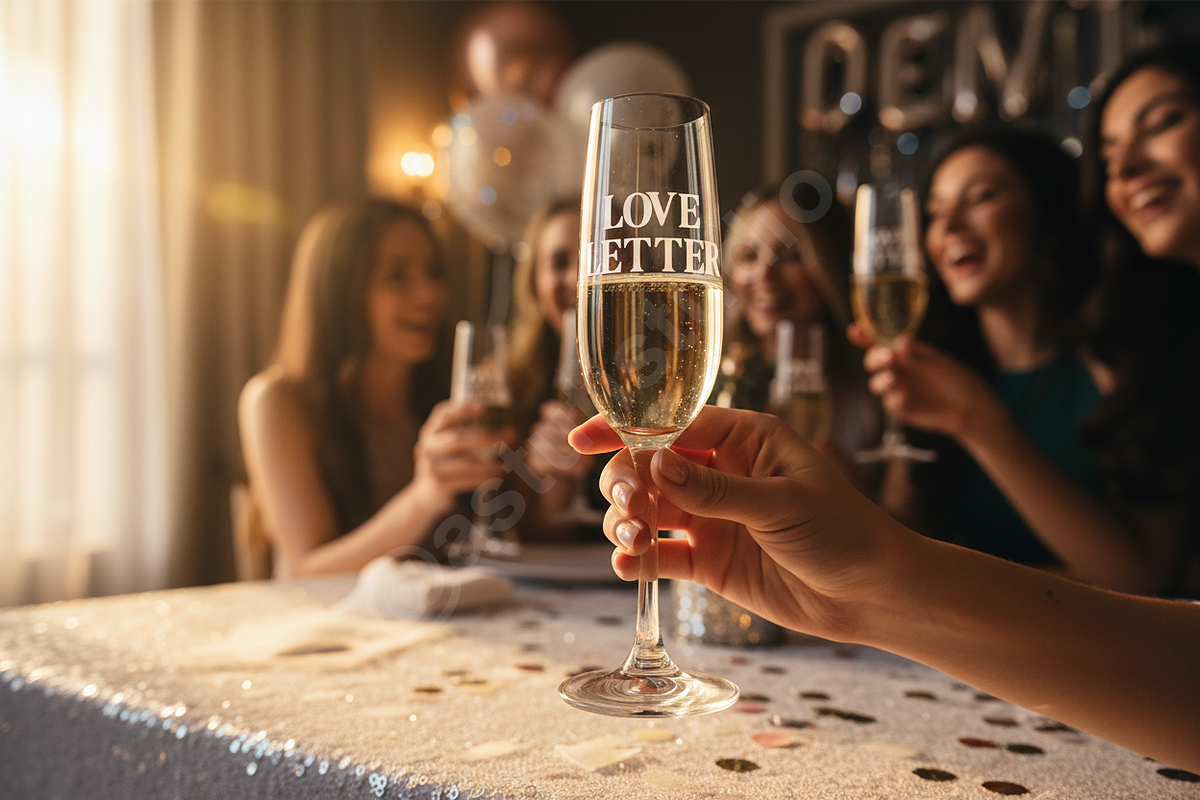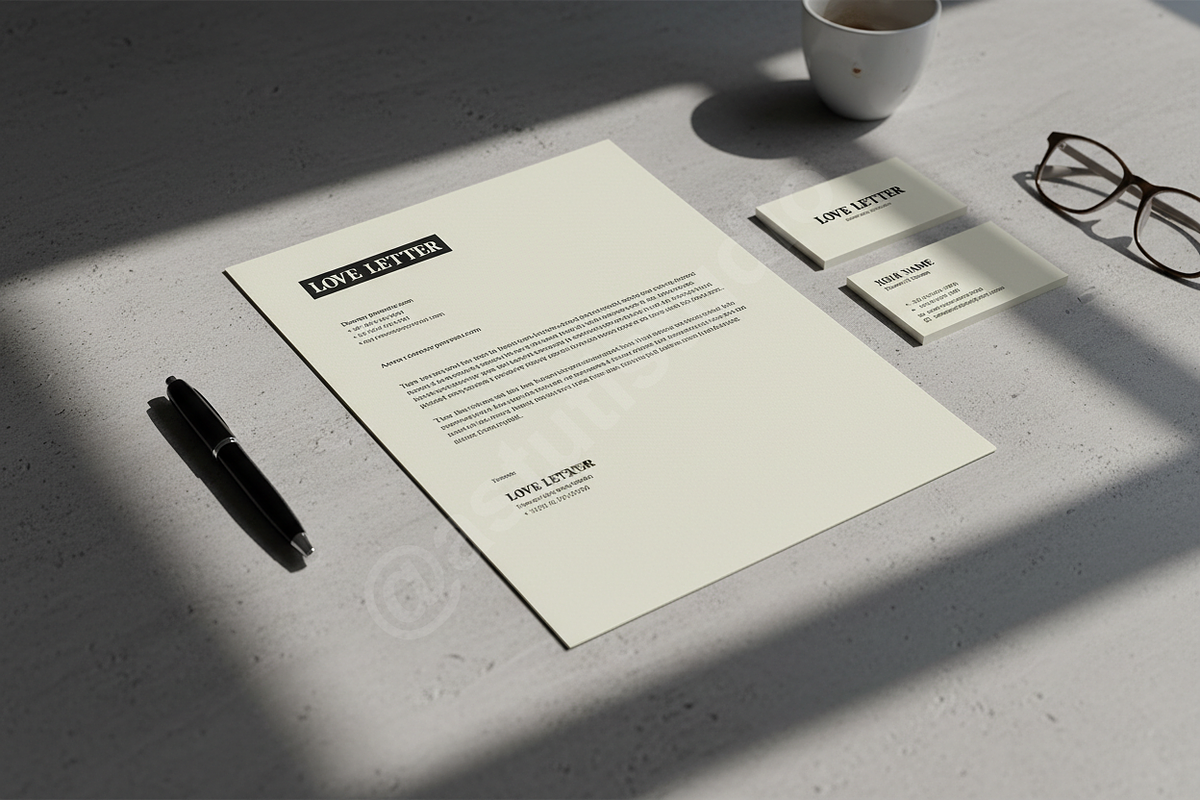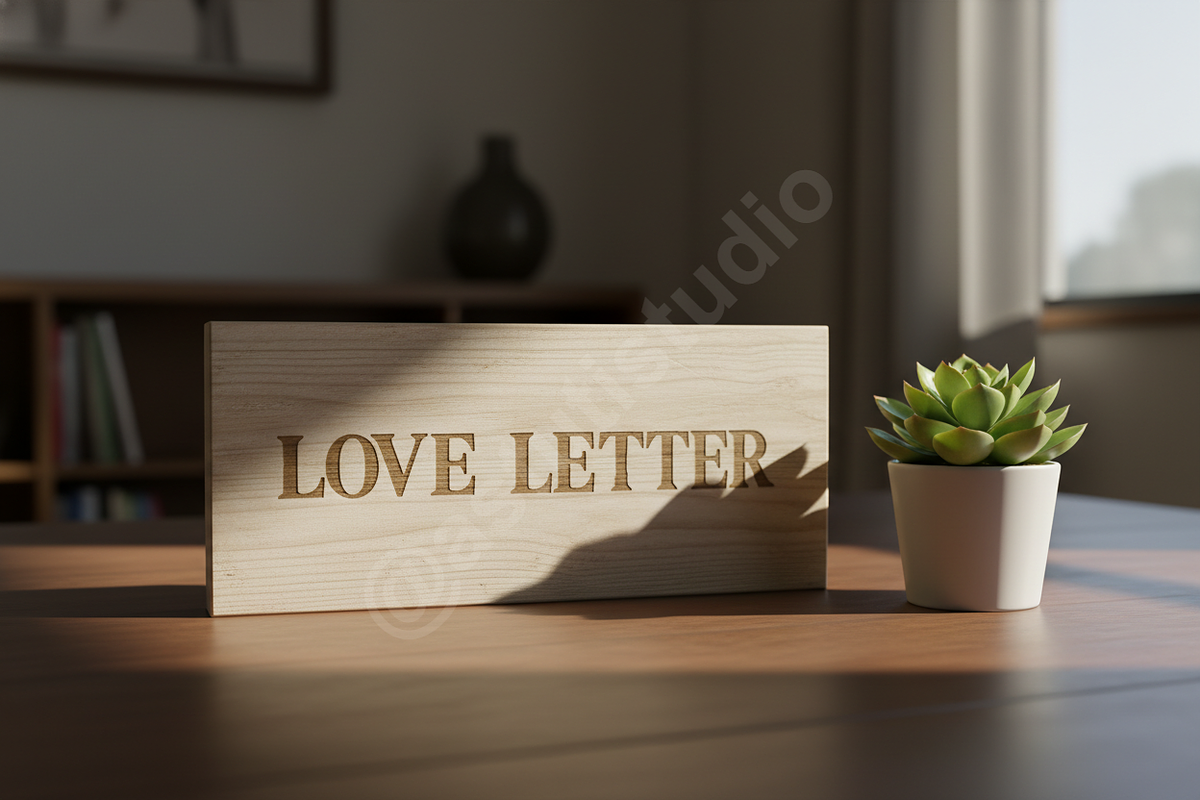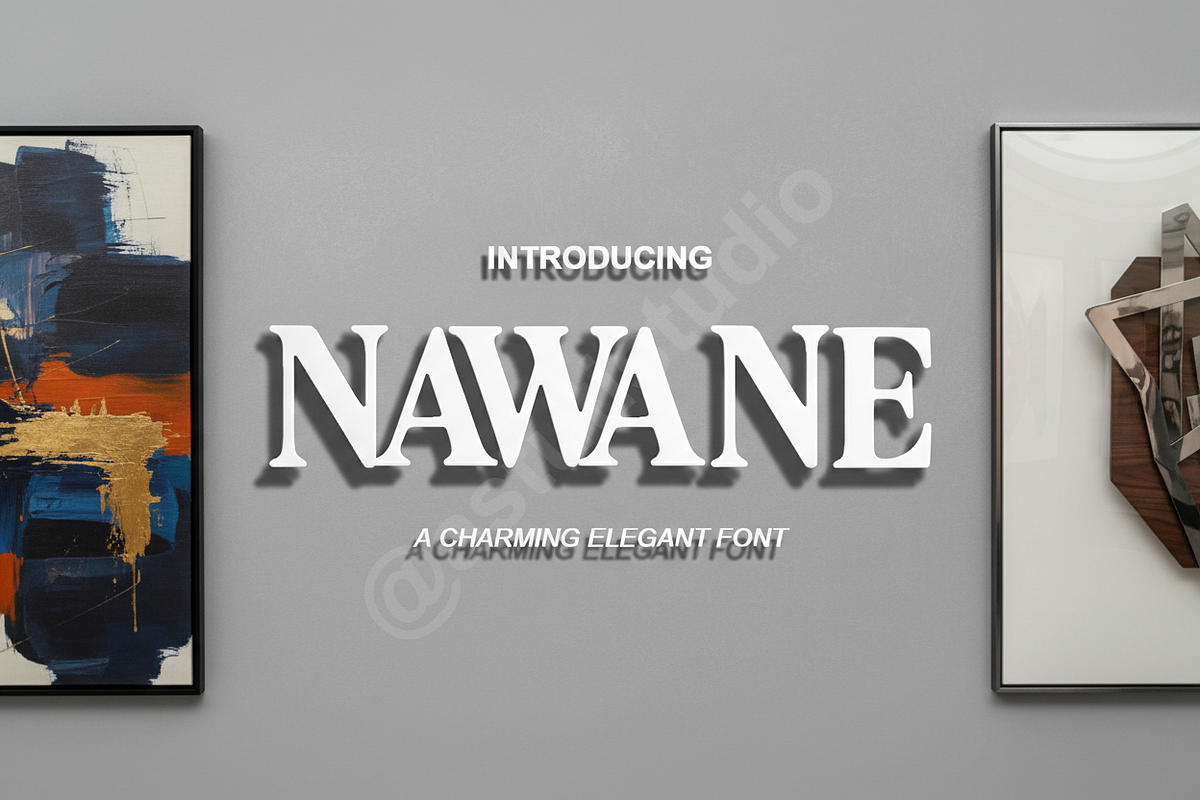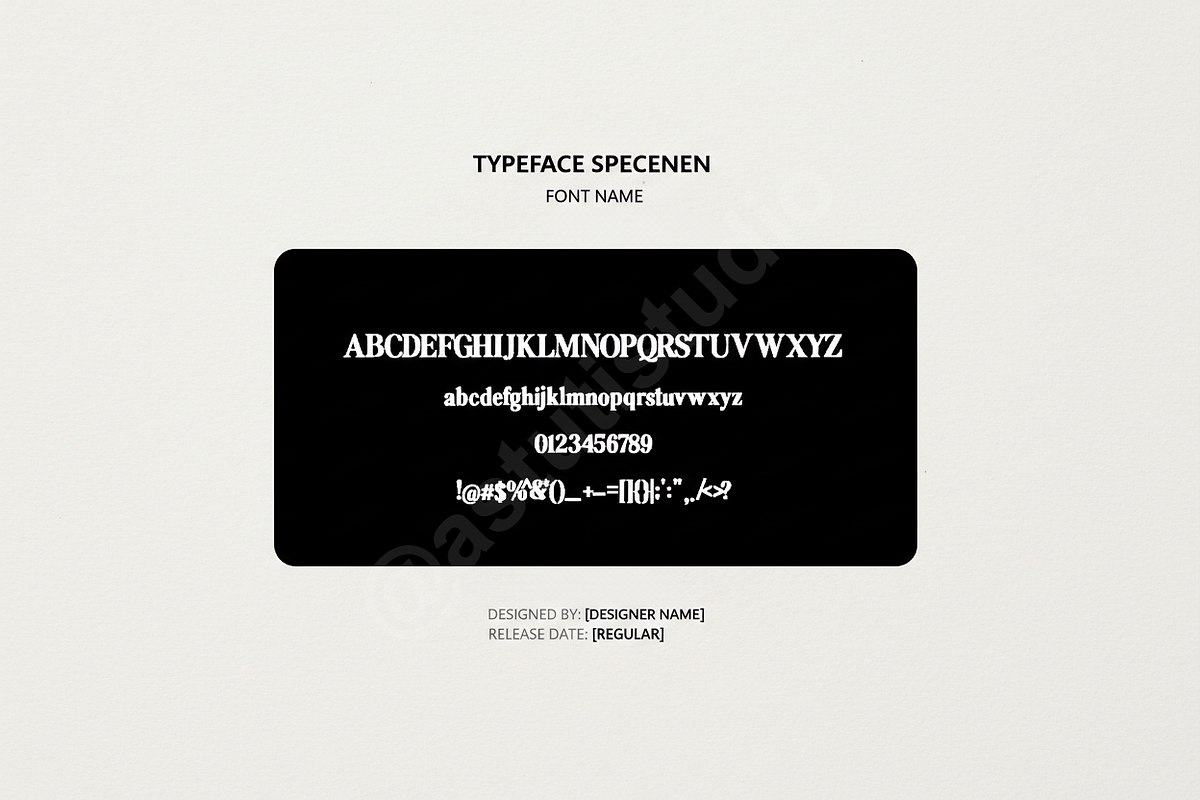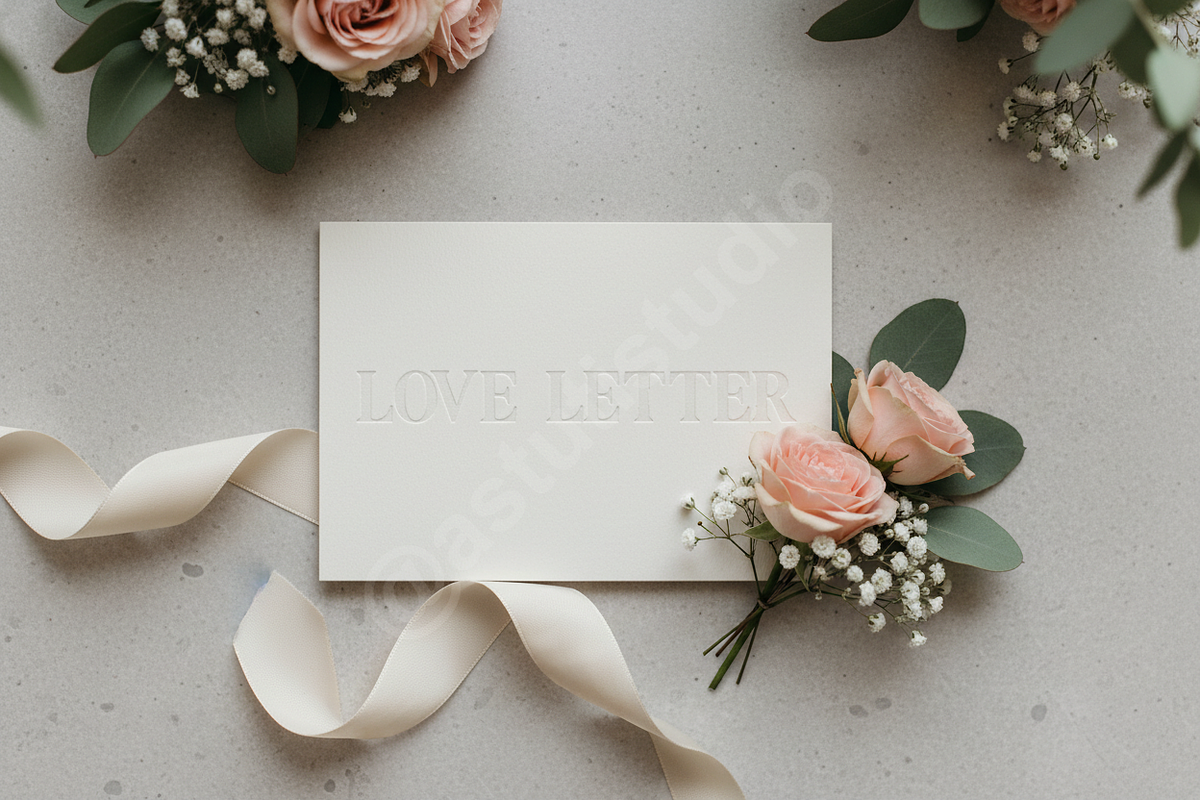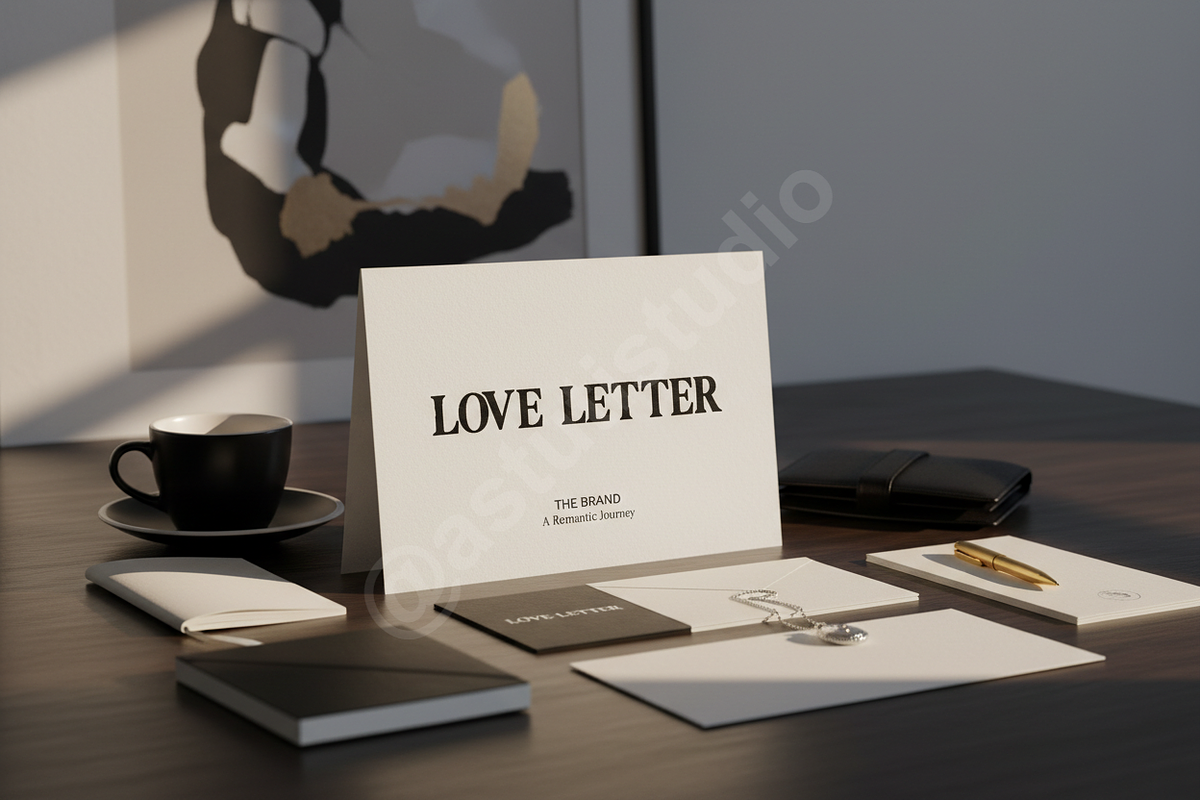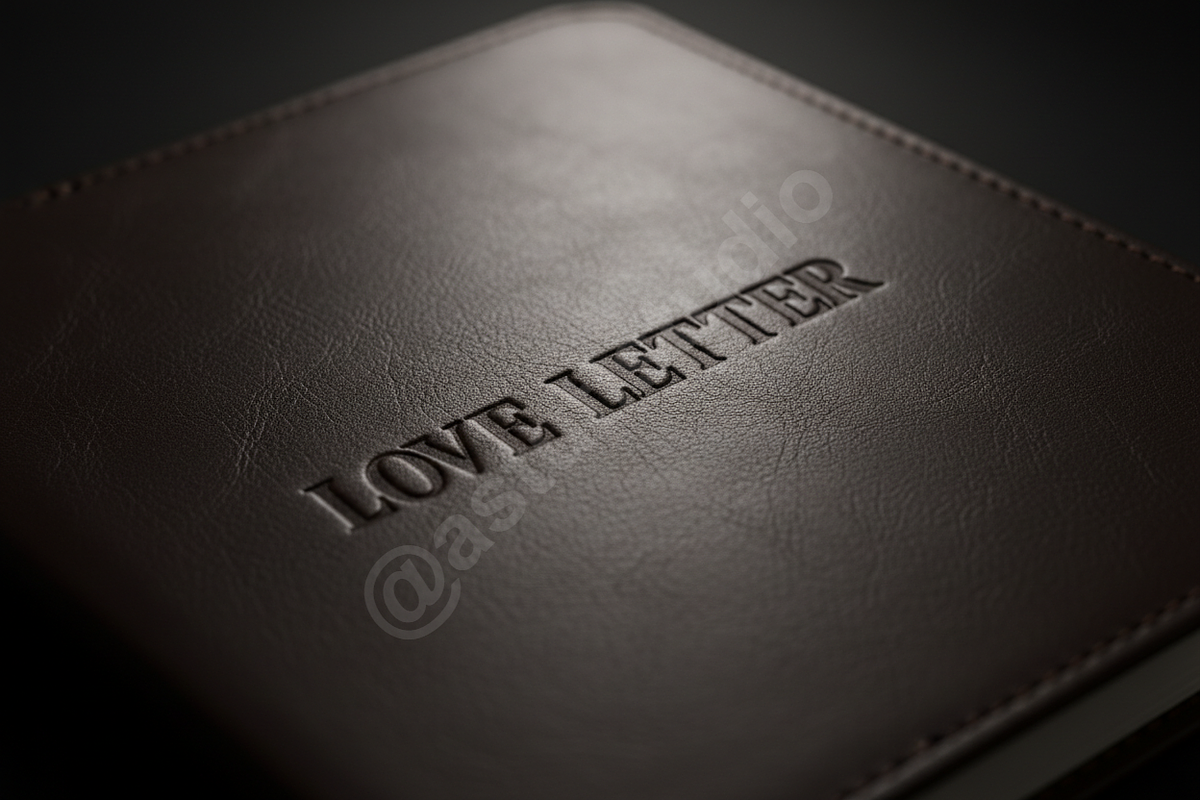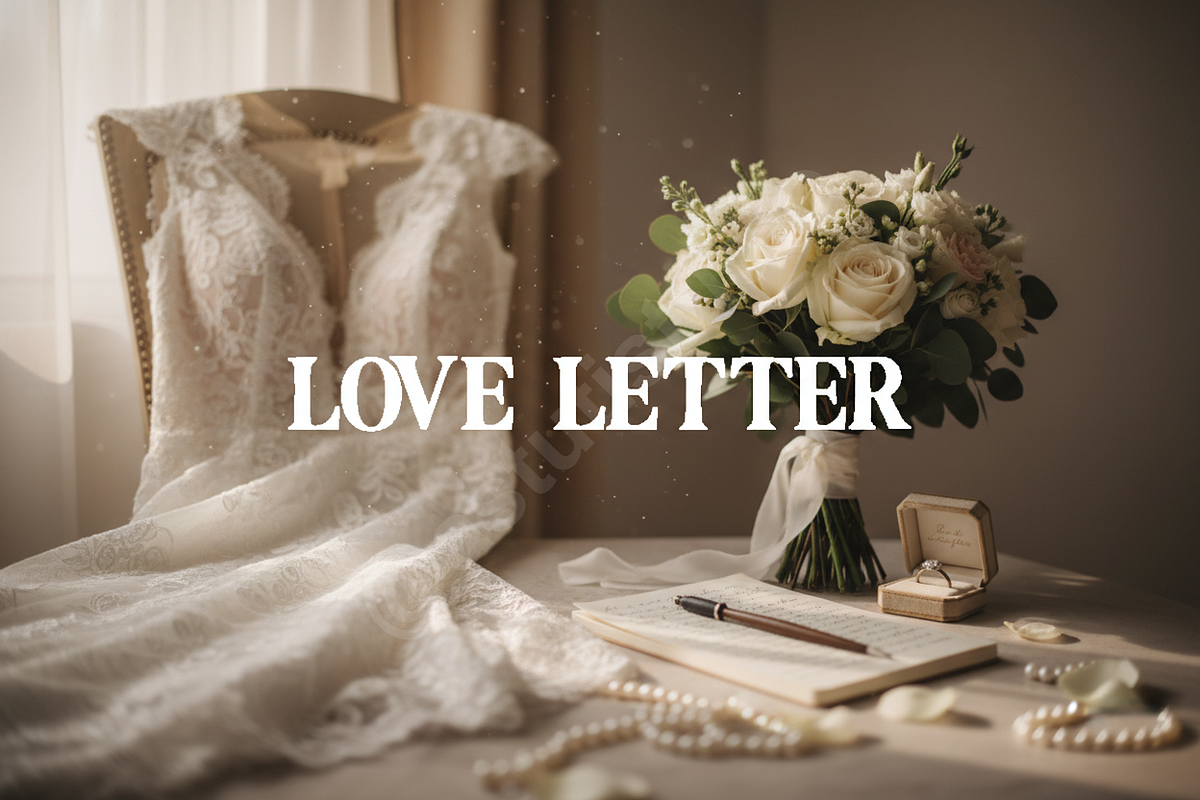
Nawane | Elegant Modern Serif Typefa
INTRODUCTION Nawane is a refined serif typeface crafted for high-end aesthetics and timeless design. With its delicate balance of thick and thin strokes, it embodies the essence of luxury and sophistication, making it an essential tool for designers seeking a premium touch.
PERFECT FOR This font is exceptionally suited for luxury branding, editorial layouts, high-fashion magazine spreads, elegant wedding invitations, and curated social media content. Whether you are designing a logo for a boutique studio or a layout for a premium lifestyle brand, Nawane delivers effortless grace.
- Sophisticated uppercase and lowercase characters
- Elegant ligatures for unique typography
- Comprehensive multilingual support
- Clean and precise letterforms
- Optimized kerning for professional results